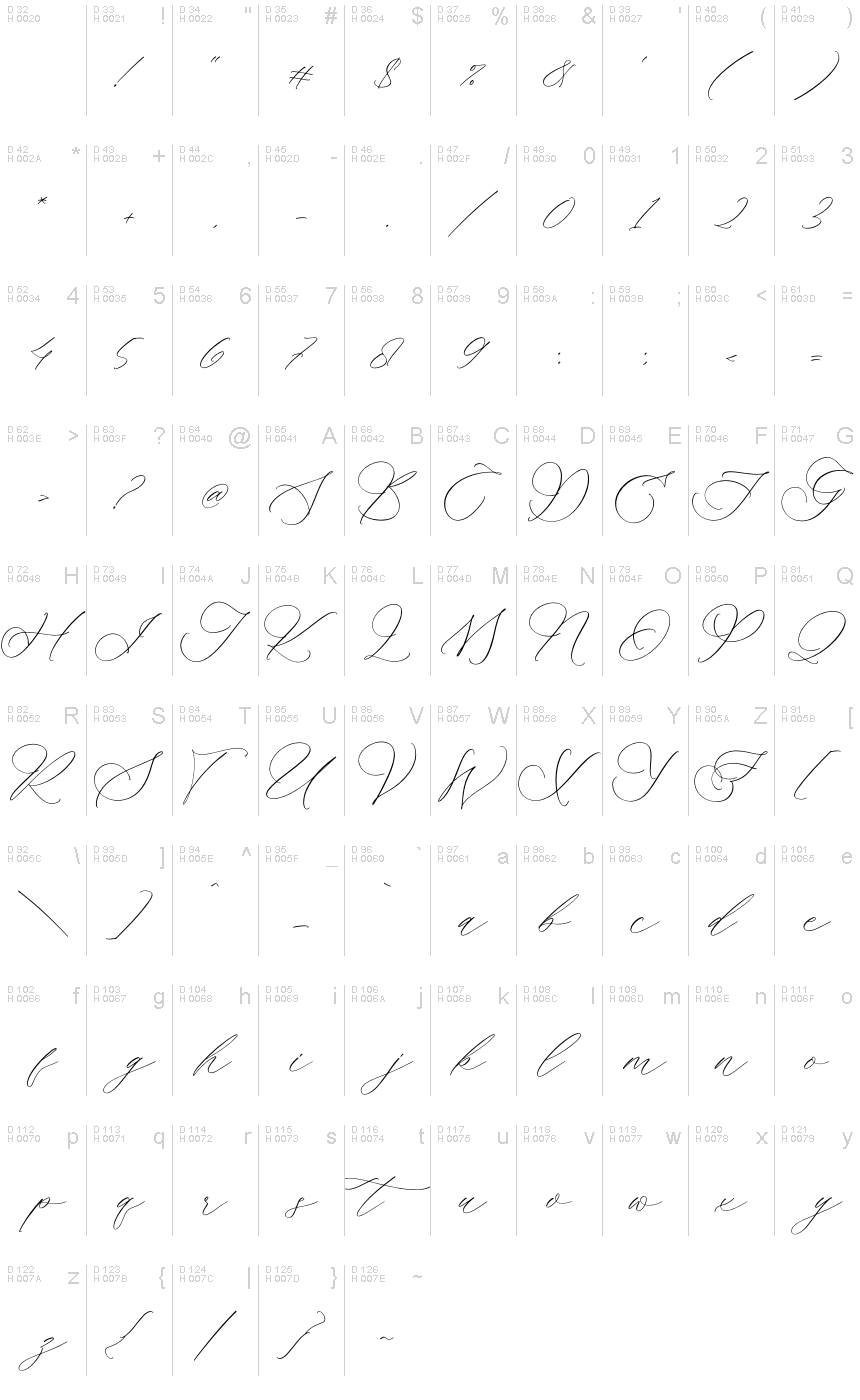
Ramsttale Chelliria
Ramsttale Chelliria font, crafted by Storytype Studio, captivates with its elegant handwritten style. This light font exudes sophistication and grace, characterized by its fluid strokes and delicate curves. Ideal for adding a personal touch, Ramsttale Chelliria is perfect for wedding invitations, branding projects, or any creative endeavor that requires an intimate and artistic flair.